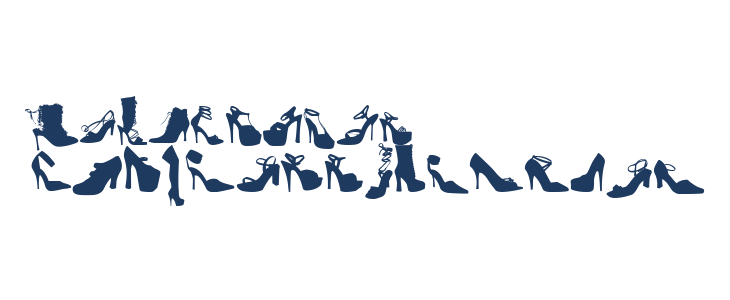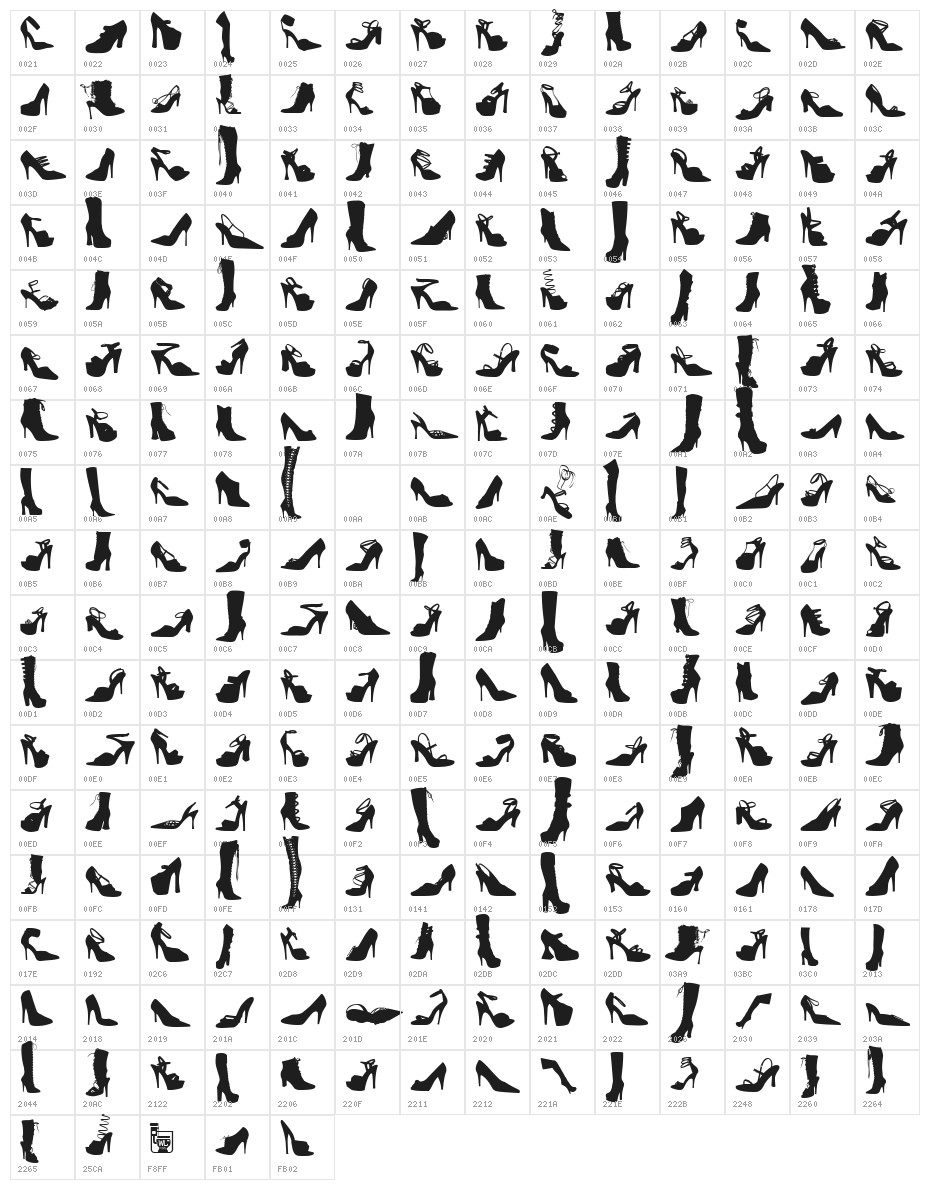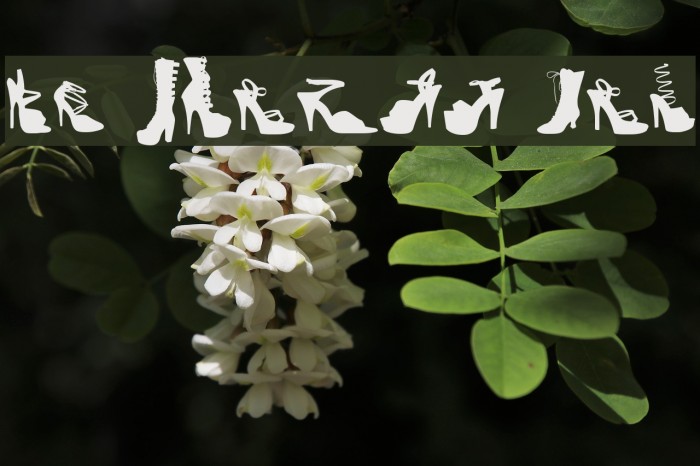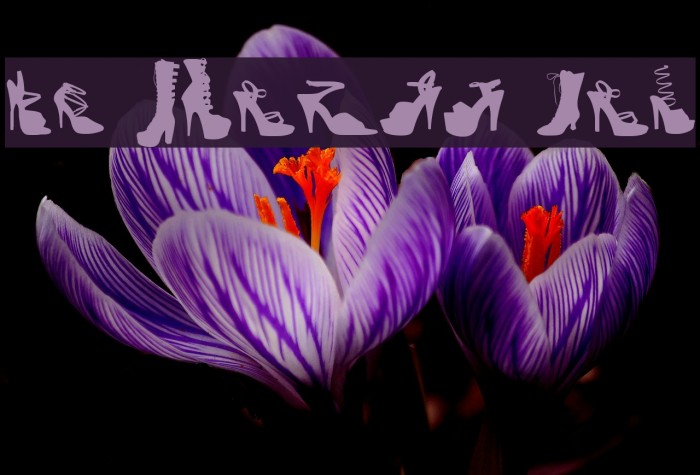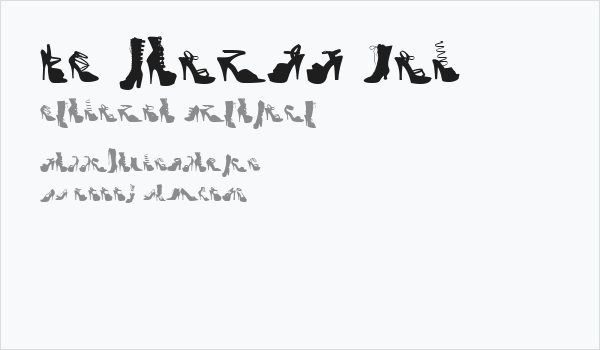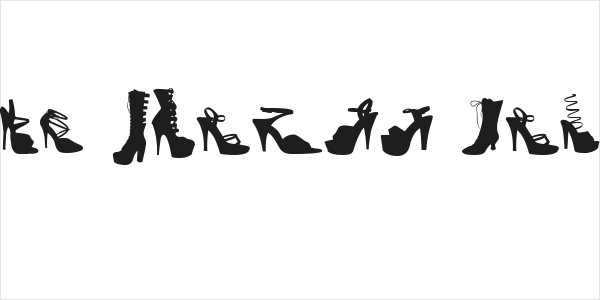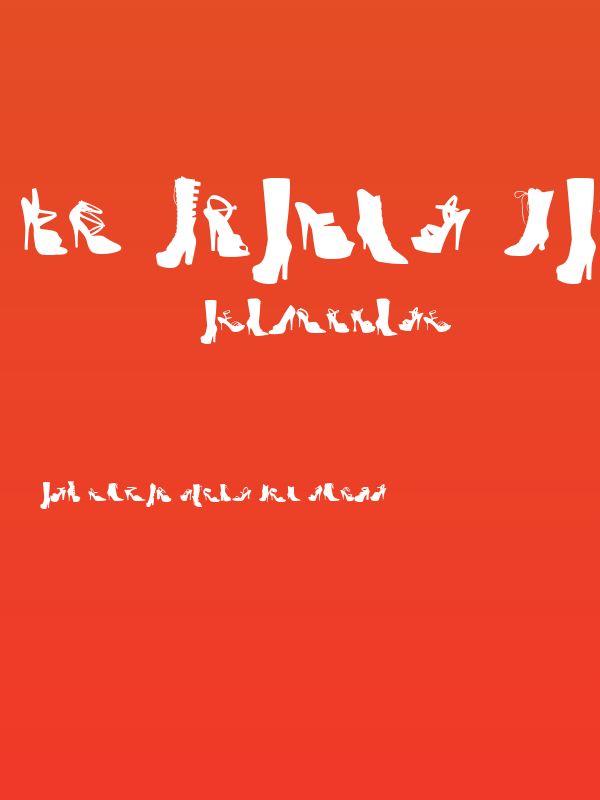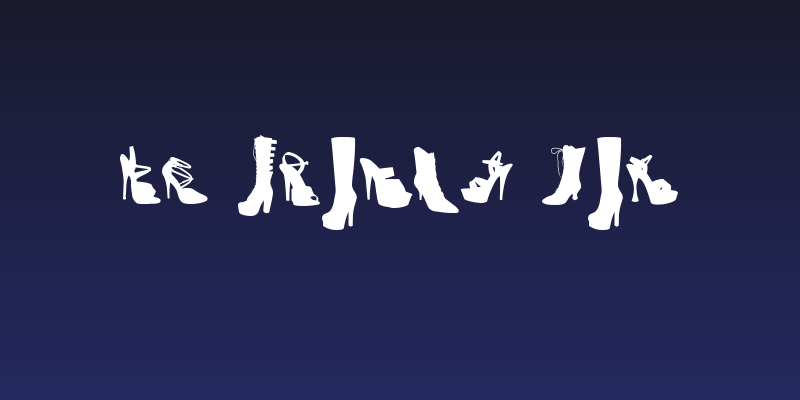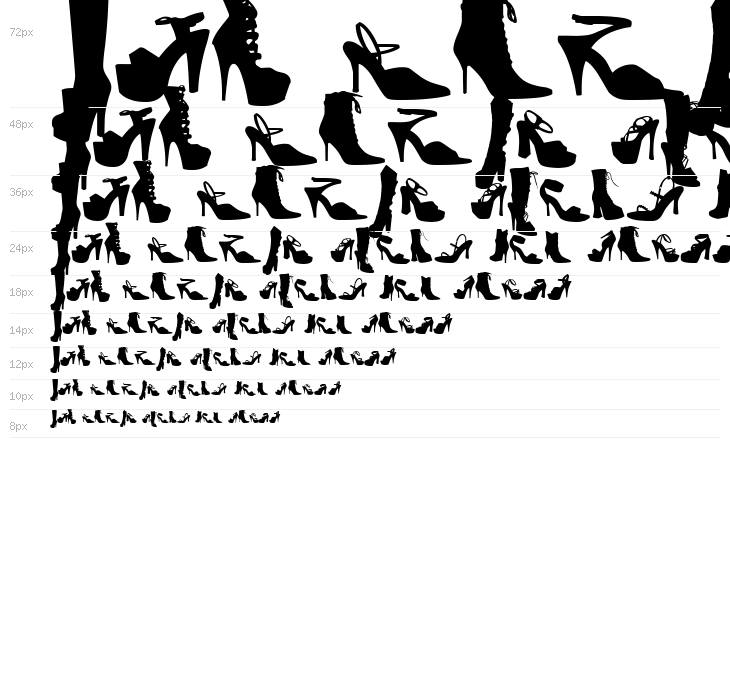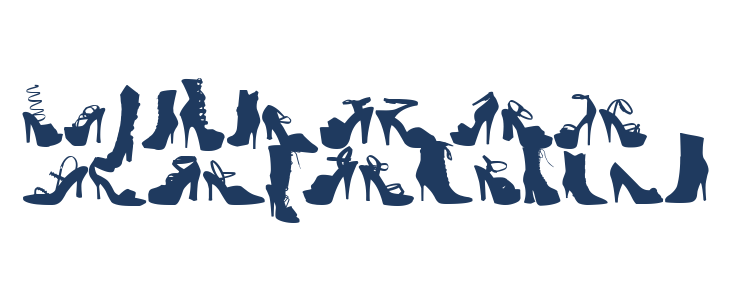
WC Fetish Bta Font
WC Fetish Bta Description
A decorative display font composed entirely of high-contrast black silhouettes of various high-heeled shoes and boots, each character represented by a unique footwear shape. The glyphs are playful and bold, with strong visual impact and no traditional letterforms.
| Overall Style | Decorative, Playful, Thematic |
| Use Case | Logos, Headlines, Posters, Themed Events |
| Proposed Projects | Fashion branding, event posters, party invitations, boutique signage, themed graphics. |